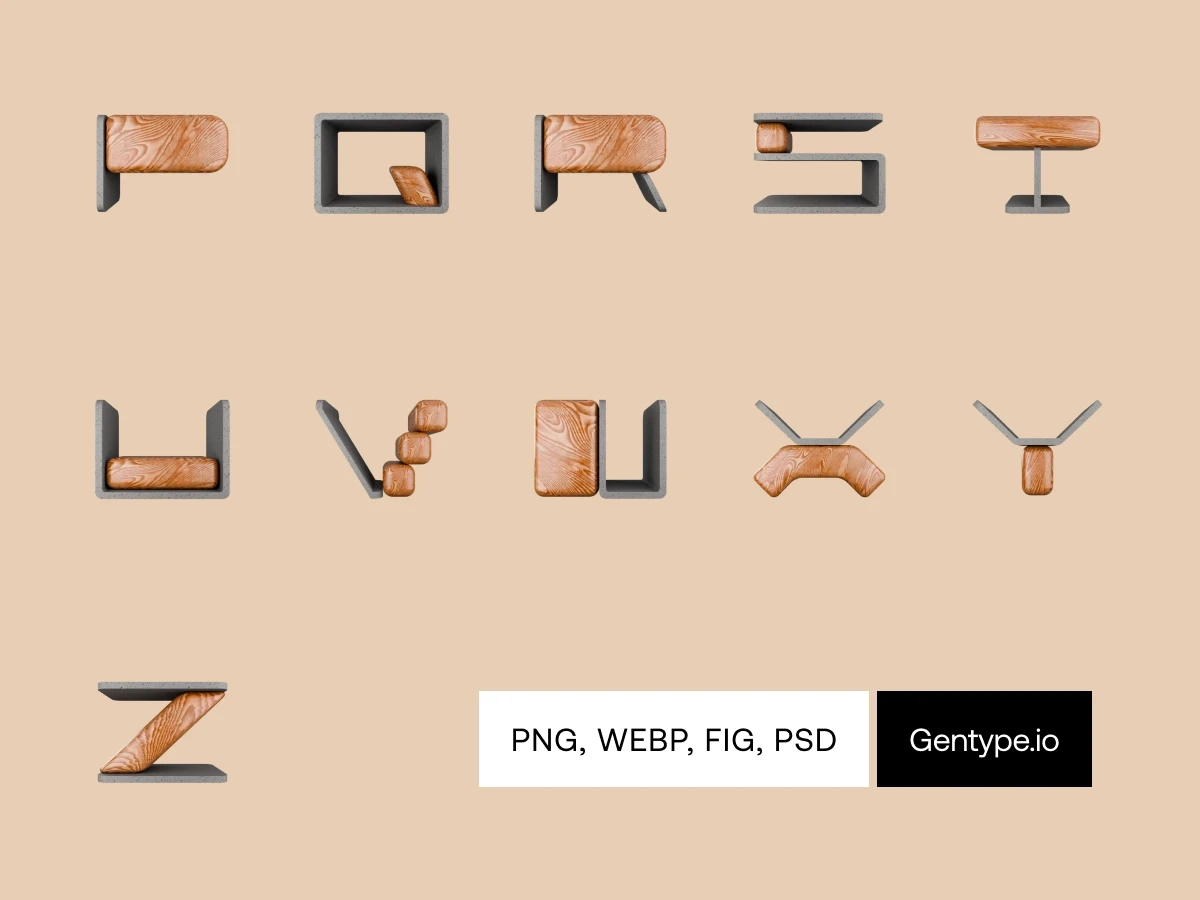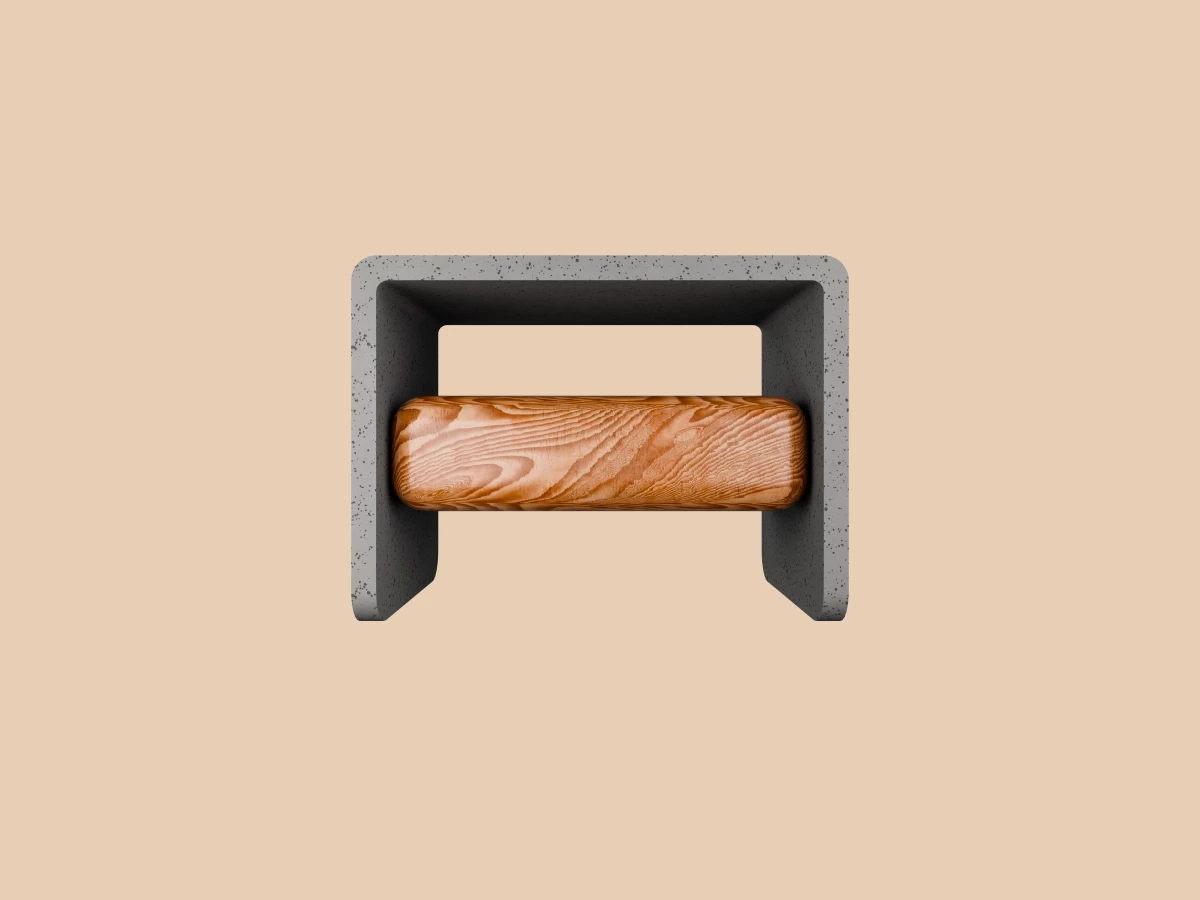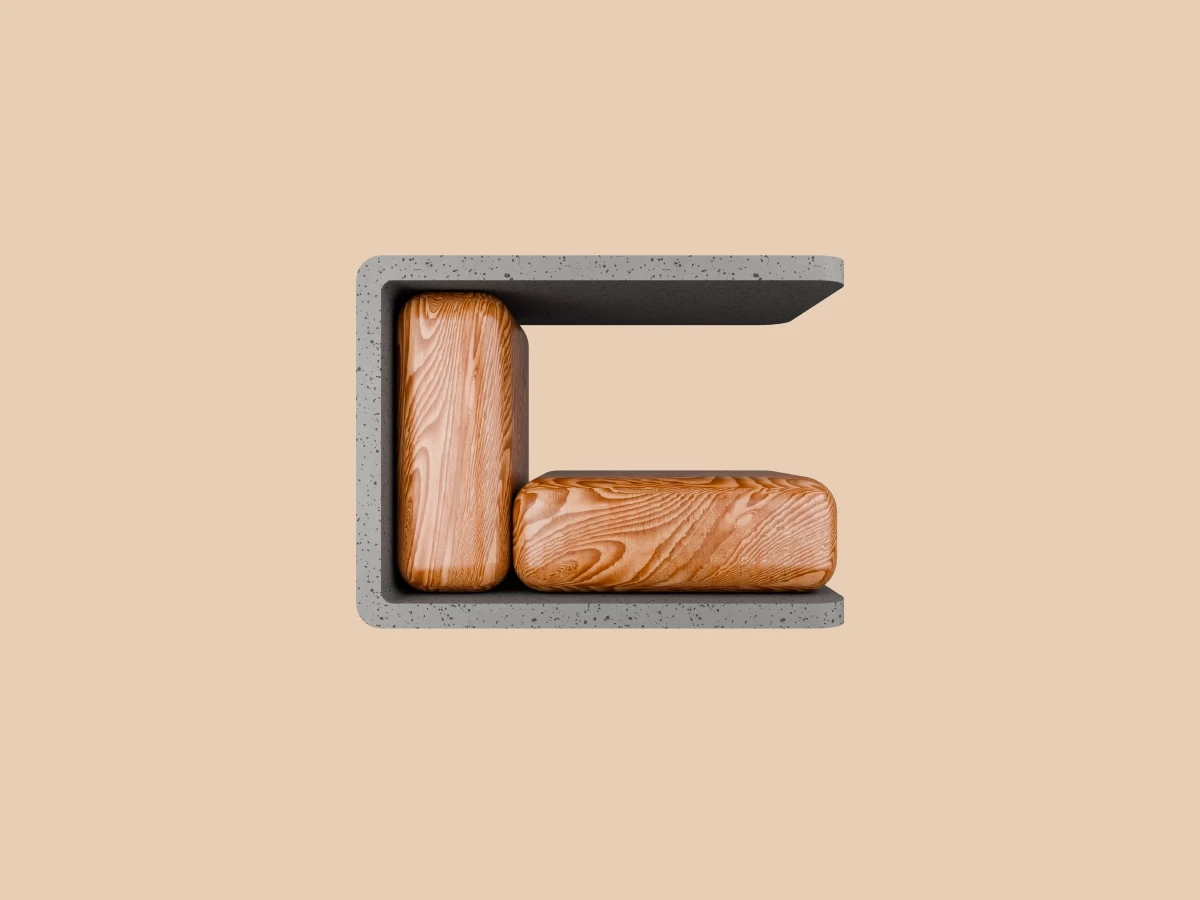
This theme brings modern furniture design to life in sleek 3D-rendered letters, crafted from concrete and wood. With minimalist textures and an architectural vibe, these sculptural letters add a polished, contemporary edge to your work. Every letter is carefully modeled and rendered from scratch, showcasing true craftsmanship and attention to detail – turning your typography into a modern masterpiece.